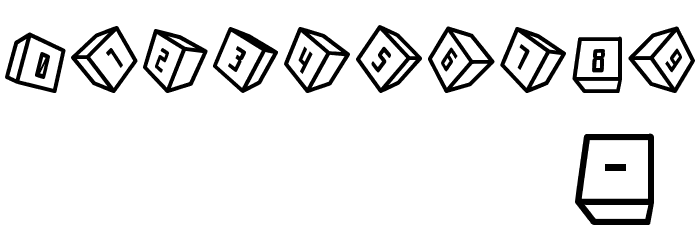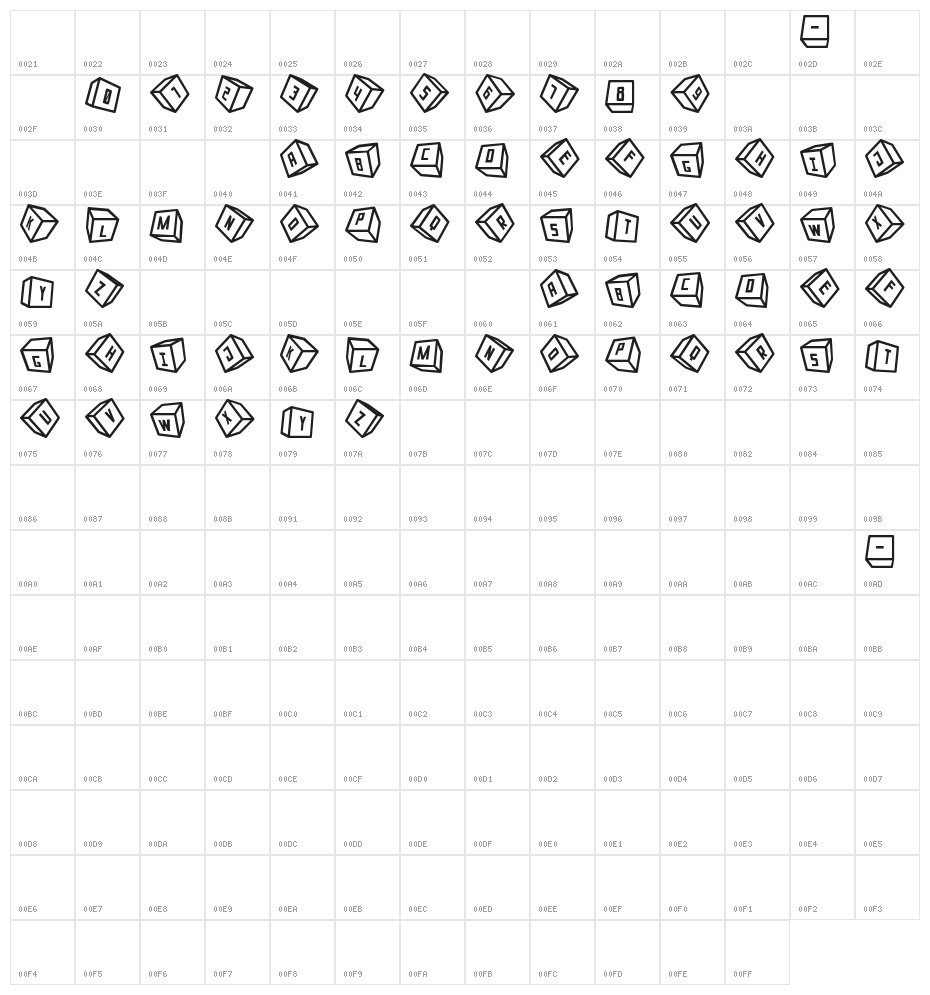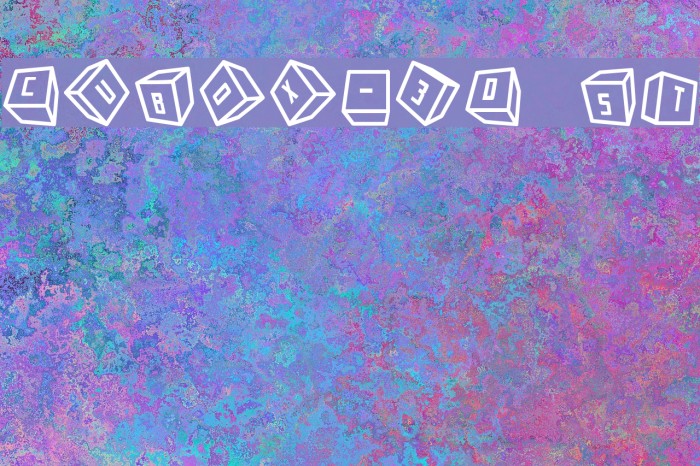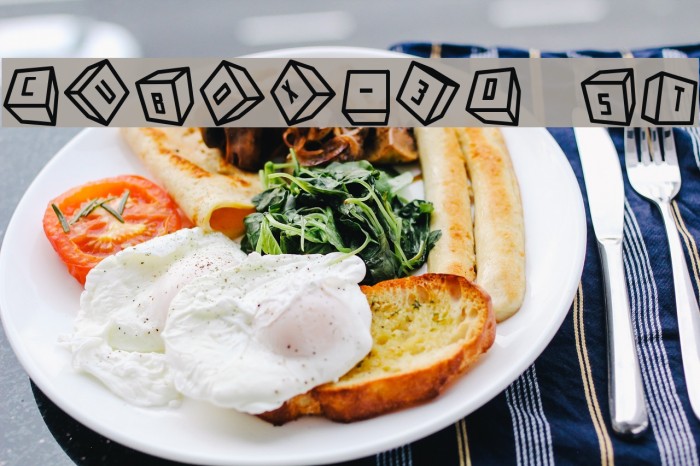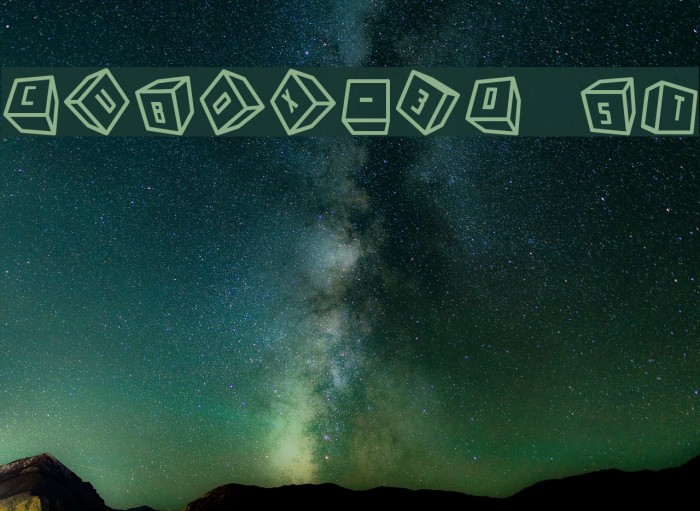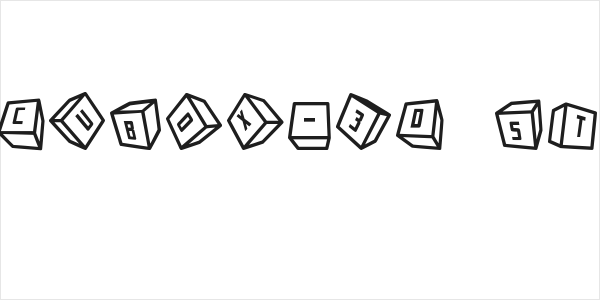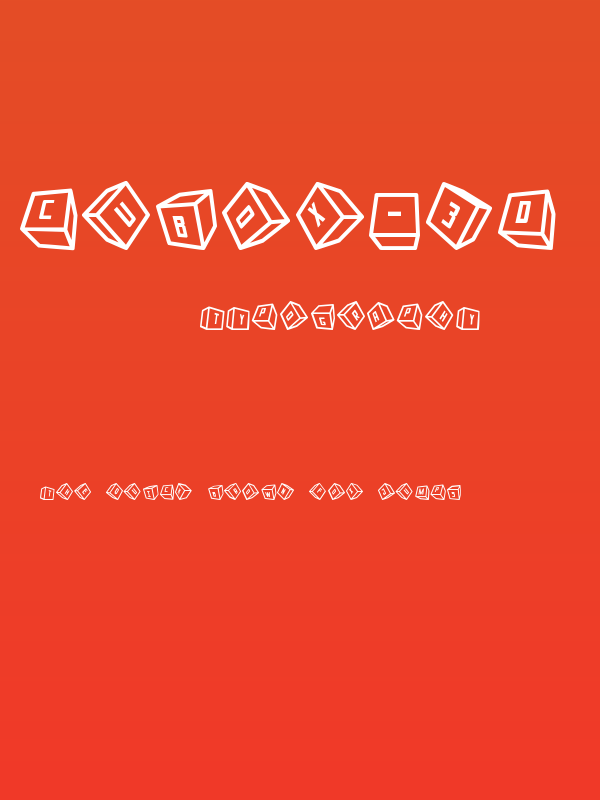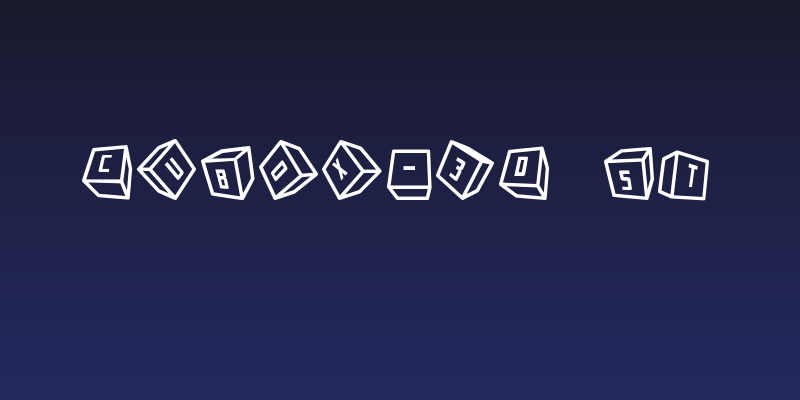
Cubox-3D ST Font
Cubox-3D ST Description
This font features a unique 3D cube design where each character is encapsulated within a cube, giving it a distinct and playful appearance. The letters and numbers are bold and outlined, creating a strong visual impact. The geometric style is consistent across uppercase, lowercase, and numeric characters, maintaining a cohesive look. The special characters are also integrated into the cube design, ensuring uniformity. This font is ideal for projects that require a modern and eye-catching aesthetic, such as posters, logos, or creative branding materials.
| Proposed Projects | Ideal for creative branding, posters, logos, and any design needing a modern, playful touch. |